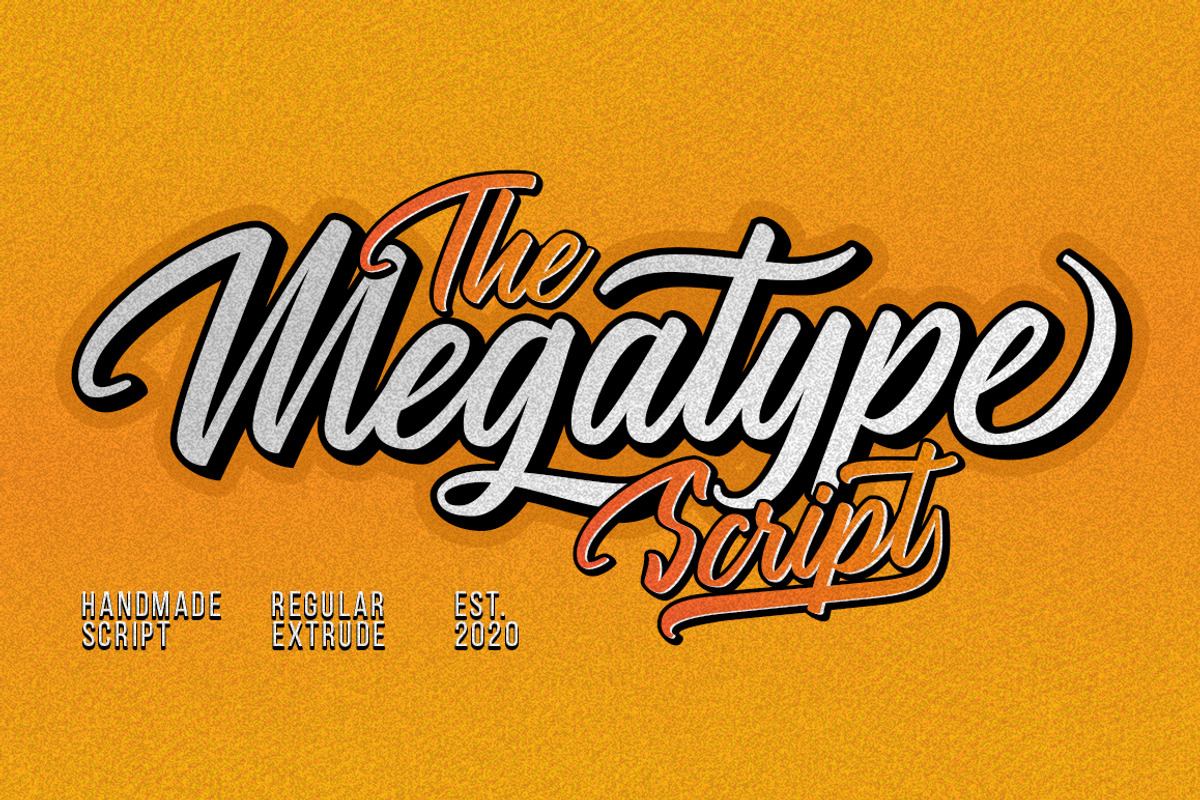
Megatype Script Font Free Download is an elegant and stylish handwritten script typeface designed to bring sophistication and fluidity to your designs. With its smooth curves, dynamic strokes, and refined letterforms, this font is perfect for wedding invitations, branding, logos, greeting cards, and high-end packaging. It strikes the perfect balance between modern and classic script styles.
Using the Megatype Script Font Free Download adds a luxurious, artistic feel to your typography. Whether you're designing a premium brand identity, creating personalized invitations, or working on stylish social media content, this font brings elegance and class to your work.